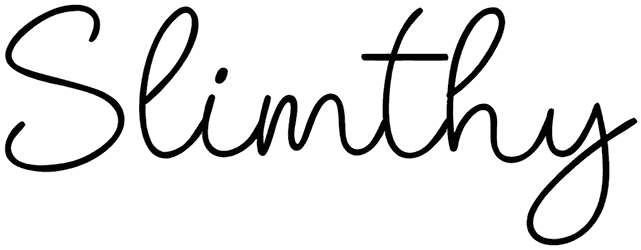
Slimthy Font
And here we have Slimthy at your service as promised. Like you had to ask twice before we fetched you this beautiful bastard! From the first encounter, you’ll be in love.
The emotional delight of it can melt your heart right on the spot. Now imagine it saying something cute on behalf of your partner, friend, or kids. That’s got to hit so sweet and strong. That’s why we suggest that you pick it for Valentine’s Day designs, postcards, etc.